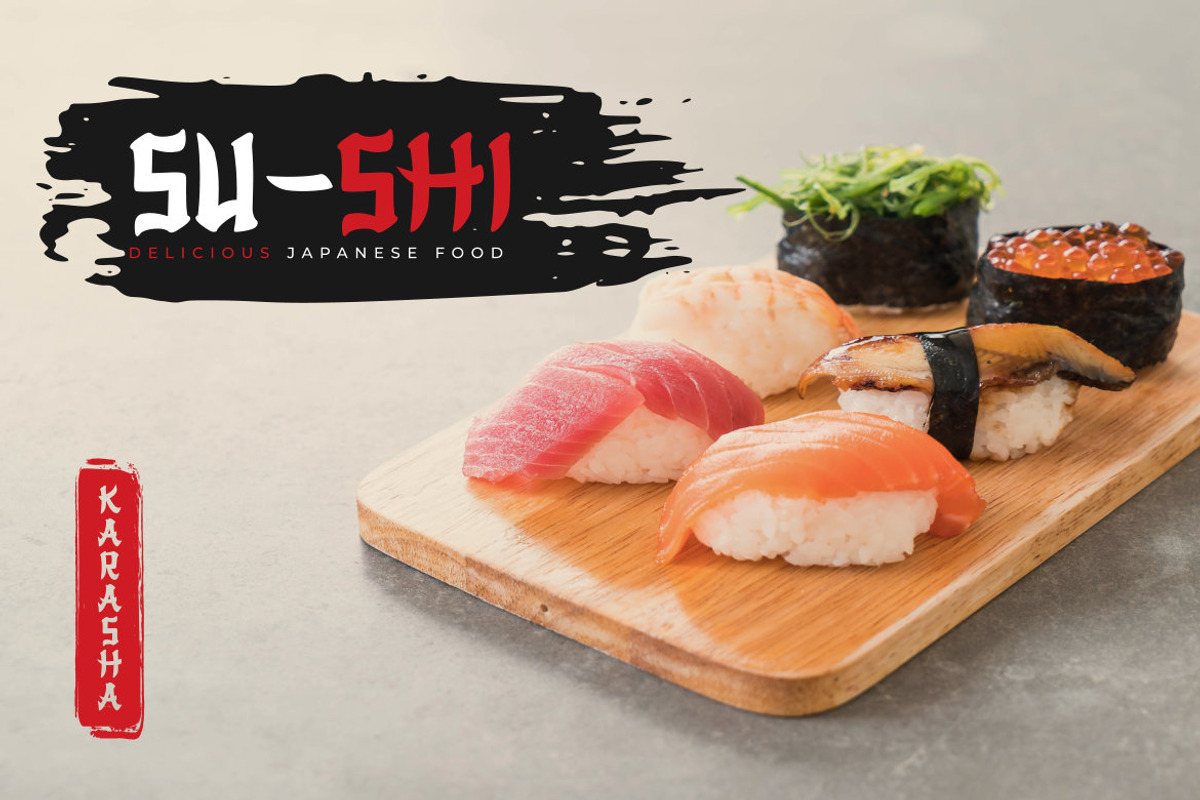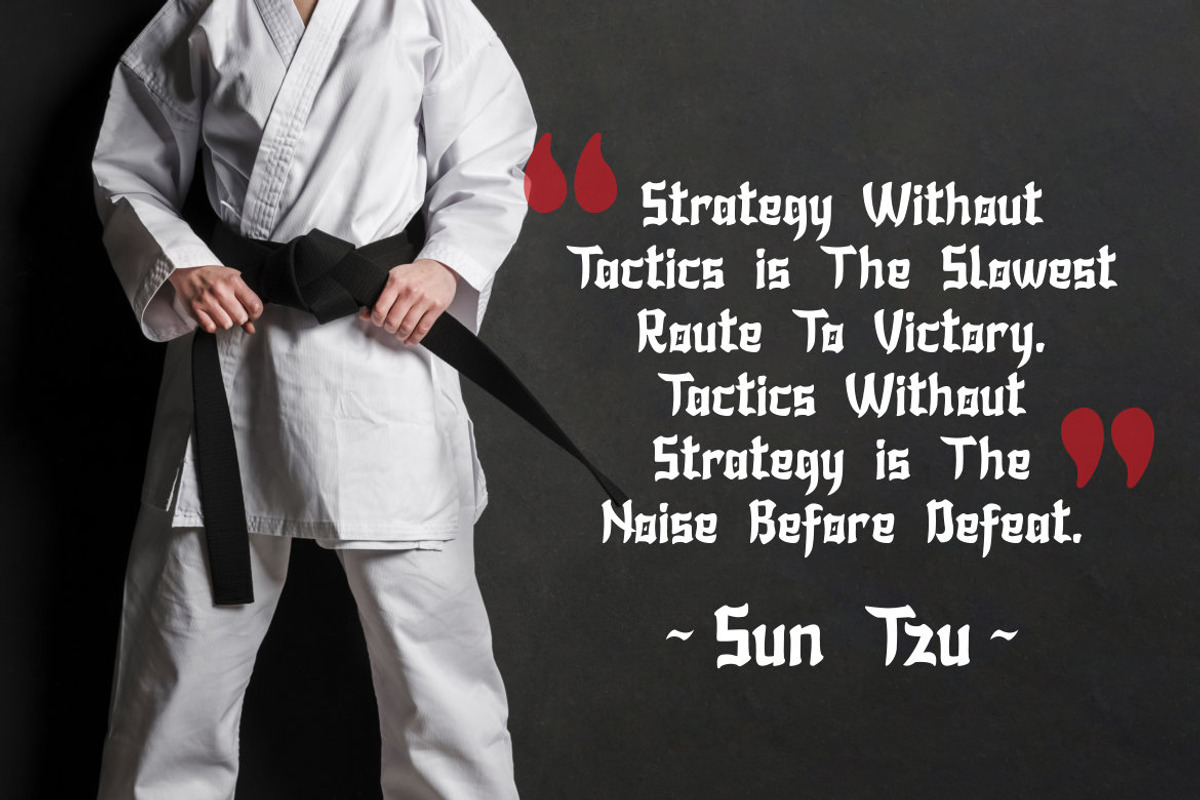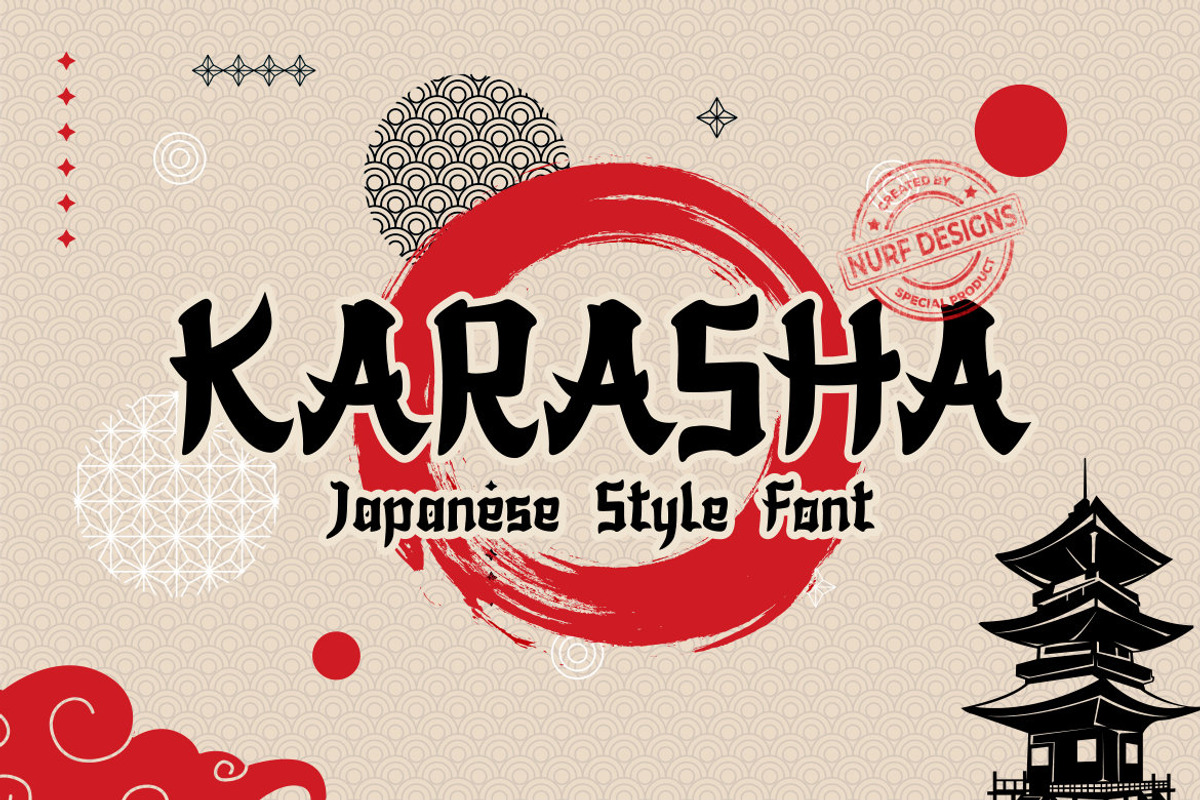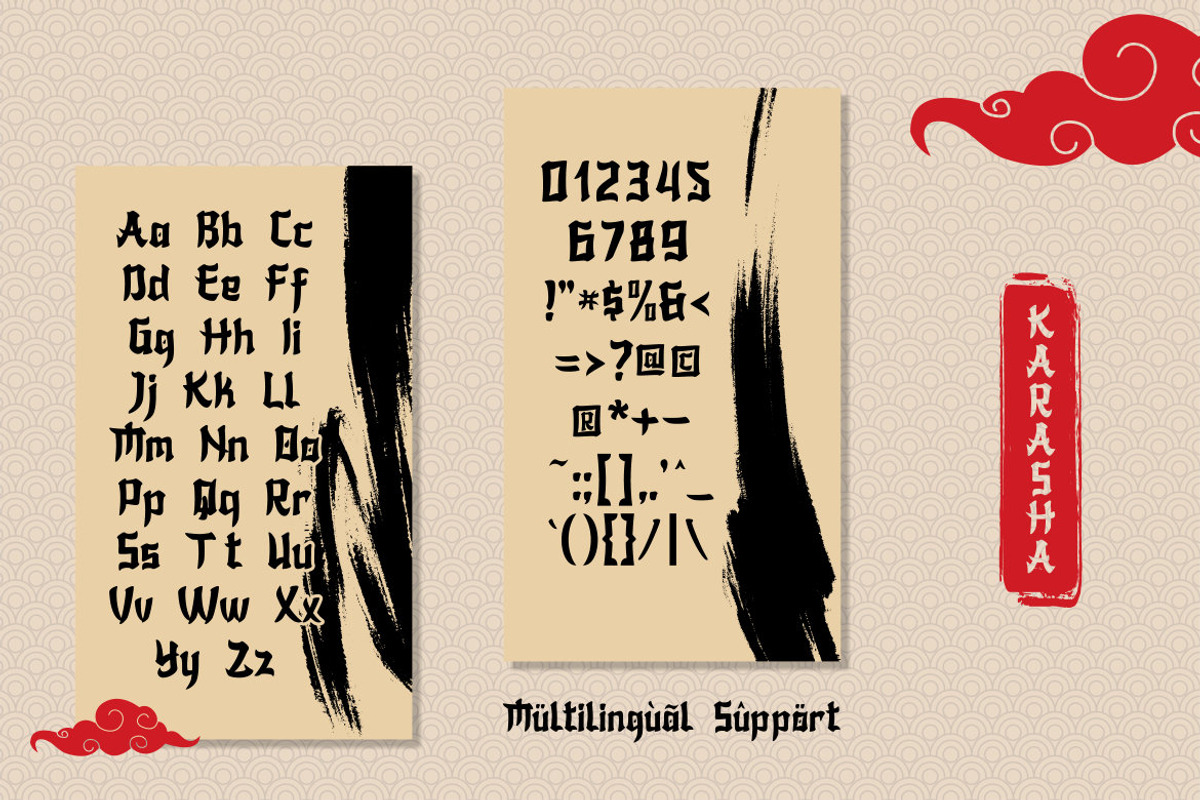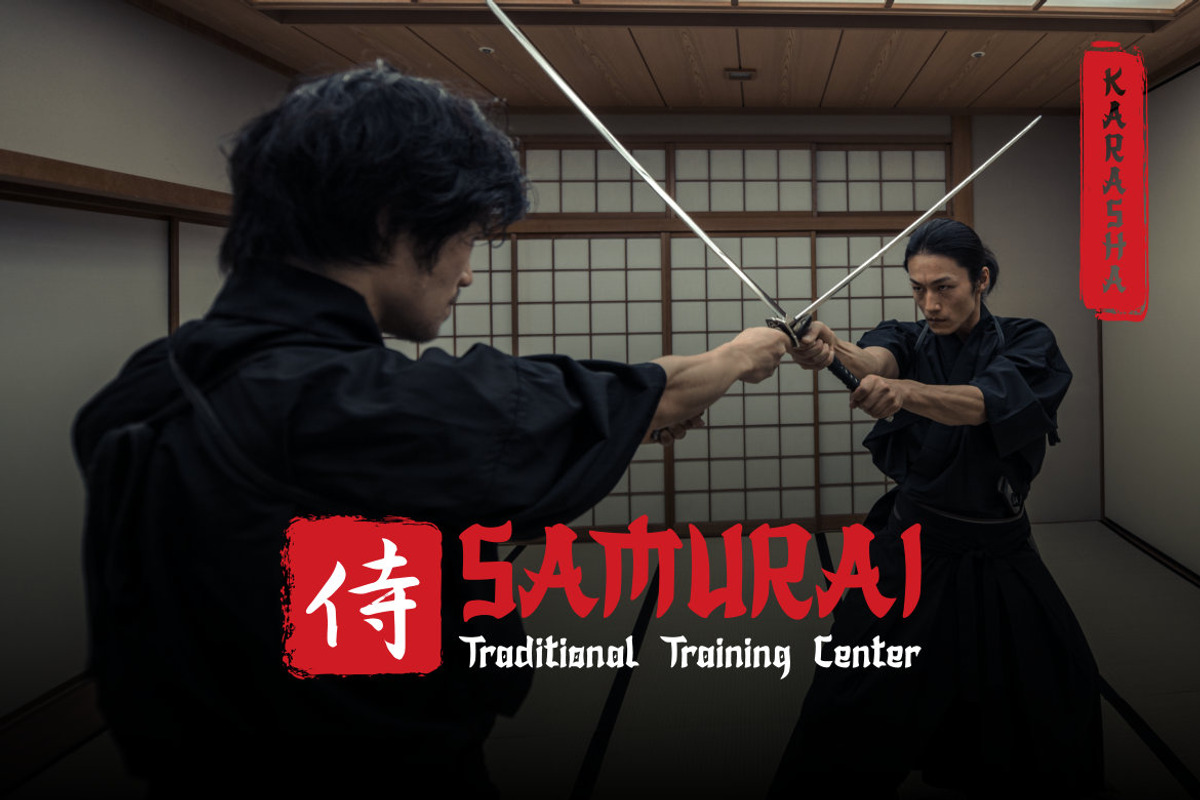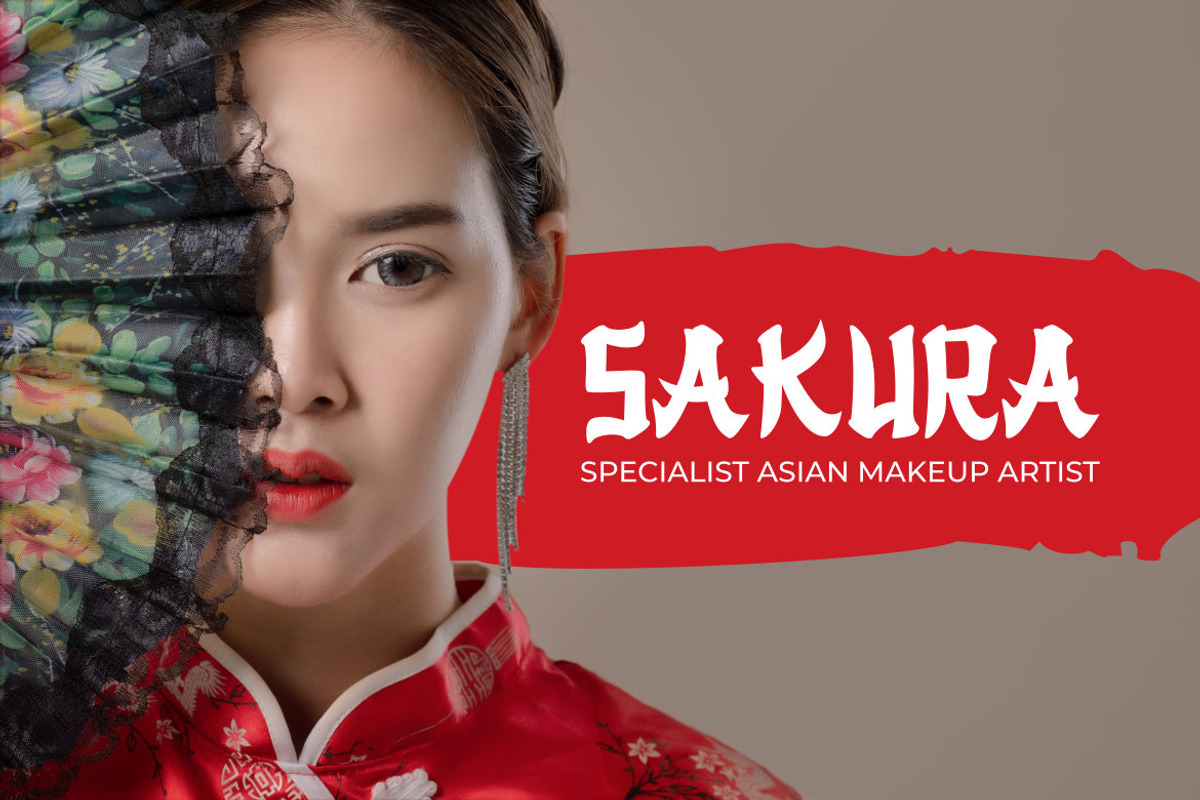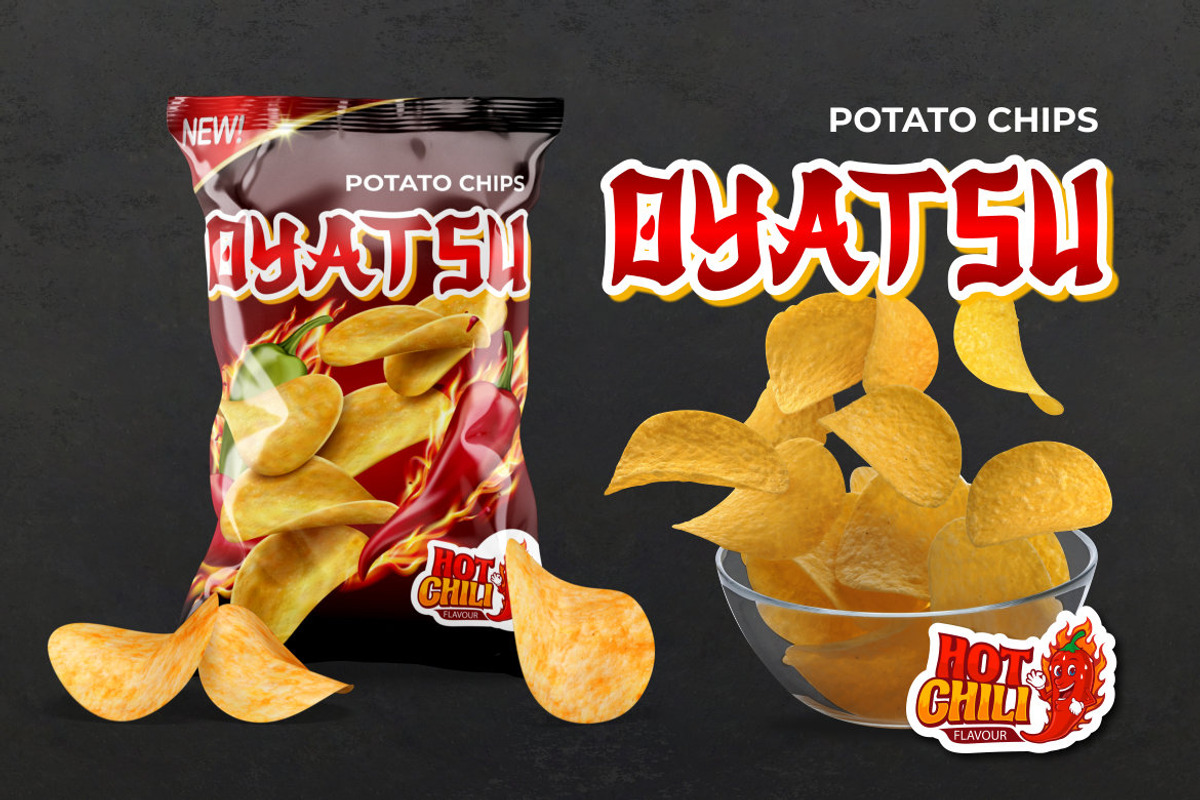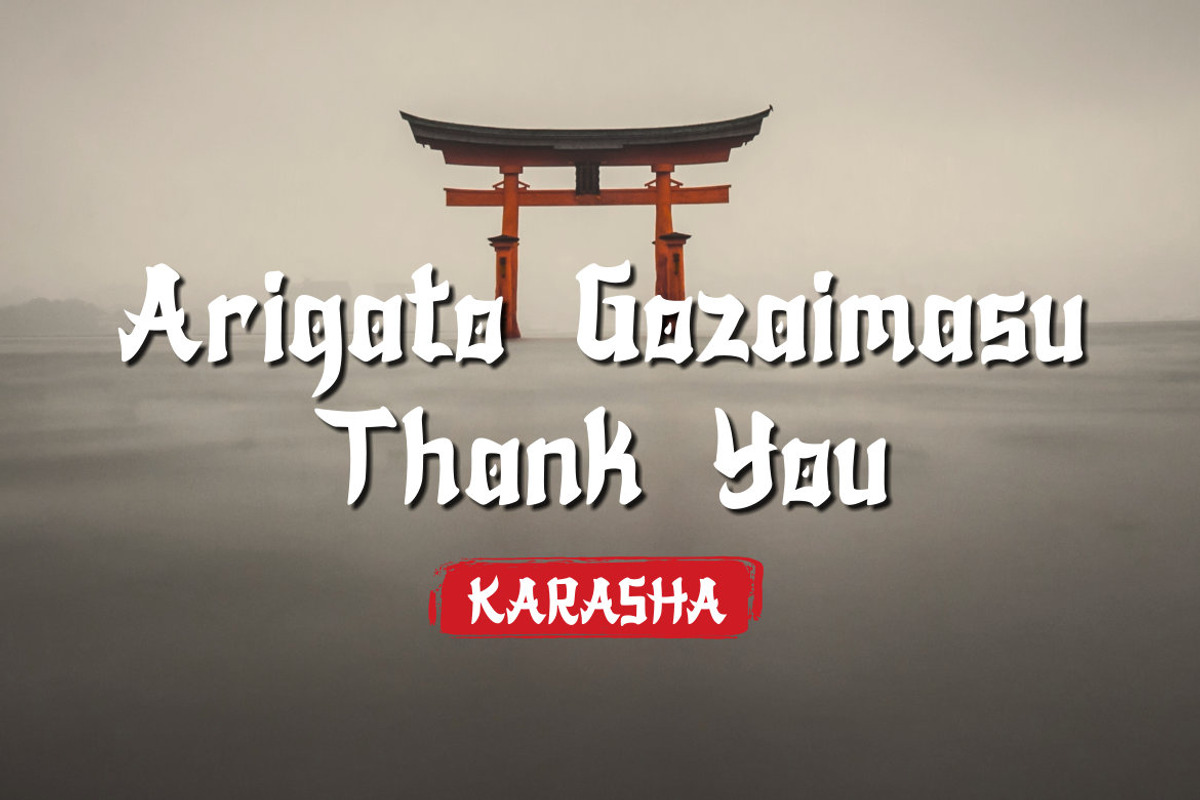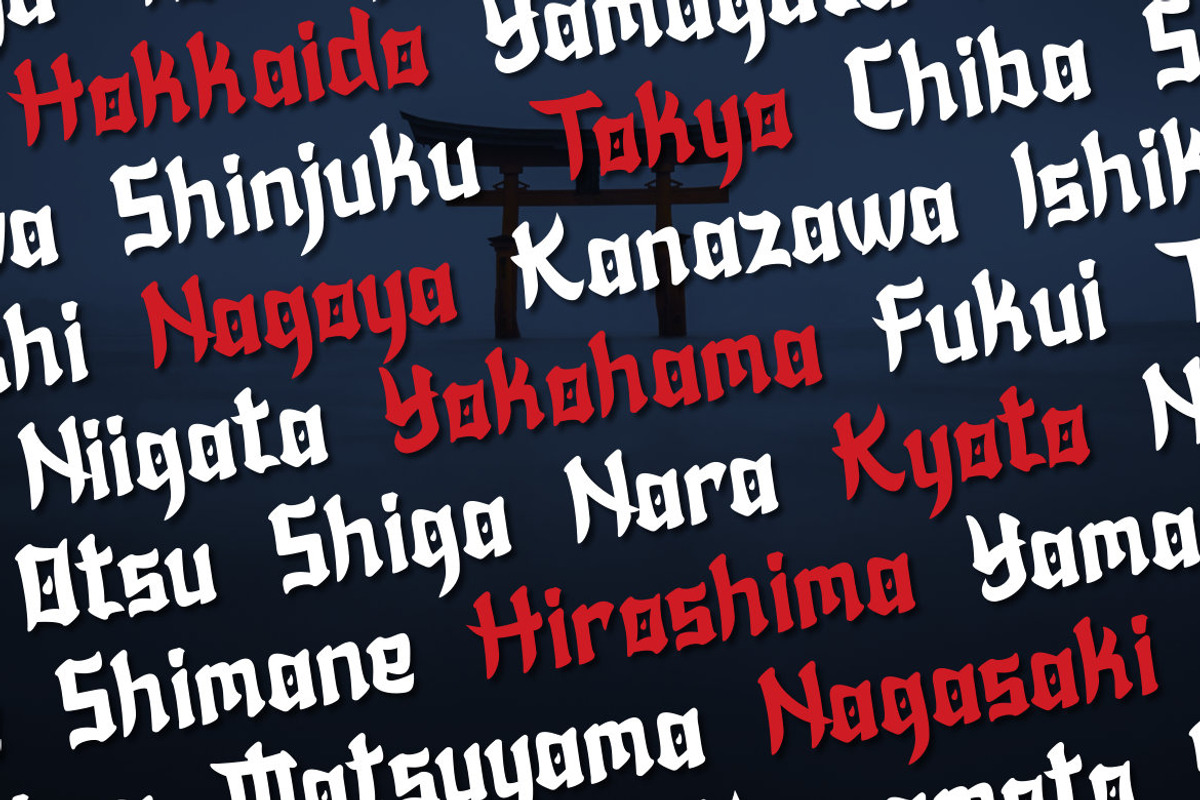
Karasha – Japanese Style Font
Karasha is a display font with Japanese style. You will get an Japanese feel to every text that uses this font. It’s the perfect font for any design projects that require a Asian aesthetic.